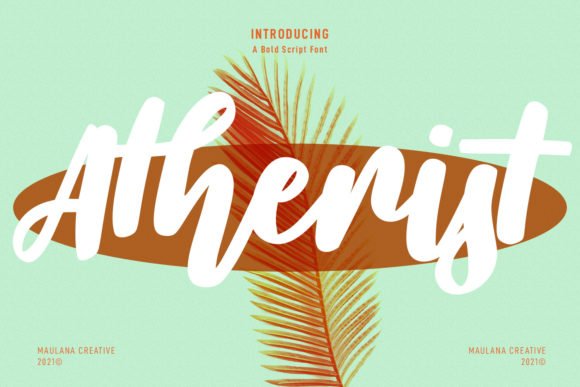
Unlock the Power of Atherist Script Font
Have you ever been brainstorming for a creative project, pouring over ideas, and finally, it clicks? That’s exactly what happened to us when we stumbled upon the Atherist Script Font. This stunning font has been the game-changer we’ve been waiting for, elevating our designs and taking them to the next level.
The Atherist Script Font is a modern script font that’s perfect for making a statement. Its unique blend of slanted bold strokes, fun characters, and special ligatures makes it ideal for logo design, social media, movie titles, book titles, and even long texts. Whether you’re a seasoned designer or just starting out, this font is a valuable addition to your toolkit.
Atherist Script Font Key Features
- Font Style: Atherist Script is a beautiful and elegant script font, perfect for creating a unique and professional look.
- Unique Characteristics: Atherist Script features a unique blend of modern and traditional elements, with intricate details and flourishes that add a touch of sophistication to any design.
Atherist Script Font Review
Overall, I’m quite impressed with the Atherist Script Font. Here are some of its standout features:
- ✨ Unique, elegant design: This script font has a sophisticated, handwritten feel that’s perfect for creative projects.
- ✨ Excellent legibility: Despite its cursive nature, the Atherist Script Font remains highly readable, making it suitable for body text.
- ✨ Wide character set: The font includes a comprehensive set of characters, including numbers, punctuation, and special characters.
- ⚠️ Limited language support: The Atherist Script Font may not include the full range of language-specific characters, which could be a drawback for multilingual projects.
- ⚠️ Not ideal for small text: The font’s elegant design can make it difficult to read in smaller sizes, so be sure to test it at various scales.
Overall, I’d give the Atherist Script Font a solid 4.5 out of 5 stars. Its unique design and excellent legibility make it a great choice for creative projects, but its limited language support and small text readability issues hold it back from being a perfect font.
The Atherist Script Font is perfect for:
Creating beautiful invitations, wedding designs, and other formal events.
Adding a touch of elegance to your branding, logos, and marketing materials.
Designing custom typography for your website, blog, or social media channels.
Alternatives to Atherist Script Font
Oswald
Oswald is a sans-serif font that is often used for headings and titles. It has a strong, geometric feel that is perfect for modern designs. Oswald is a good alternative to Atherist Script Font when you need a font that is more versatile and can be used for a variety of purposes.
Compared to Atherist Script Font, Oswald is more geometric and less ornate, making it a good choice for designs where you want a clean and modern look.
Playfair Display is an elegant script font that is perfect for luxury and high-end designs. It has a classic, sophisticated feel that is reminiscent of traditional typography. Playfair Display is a good alternative to Atherist Script Font when you need a font that is elegant and sophisticated.